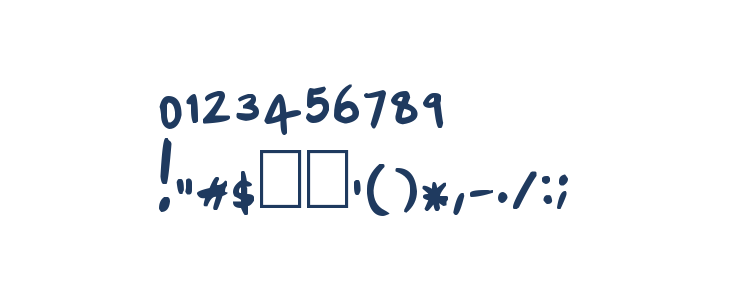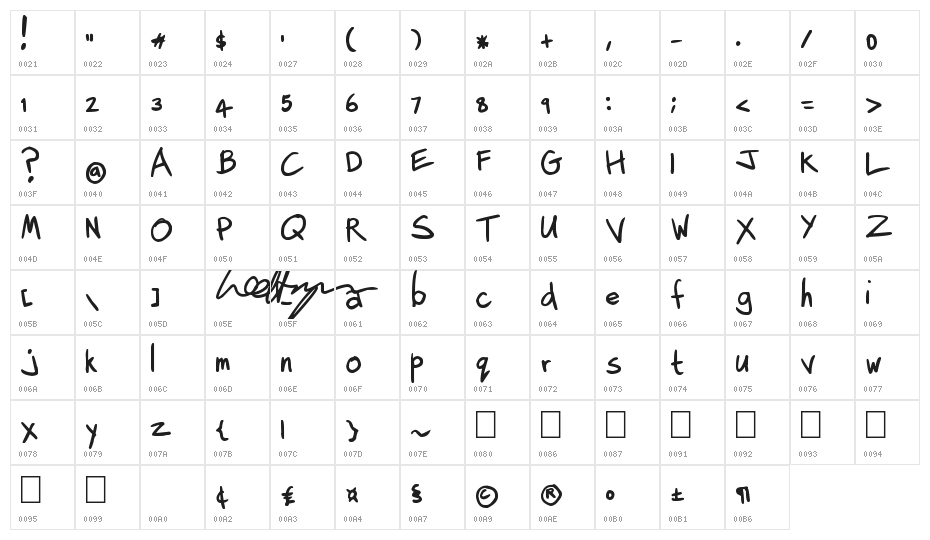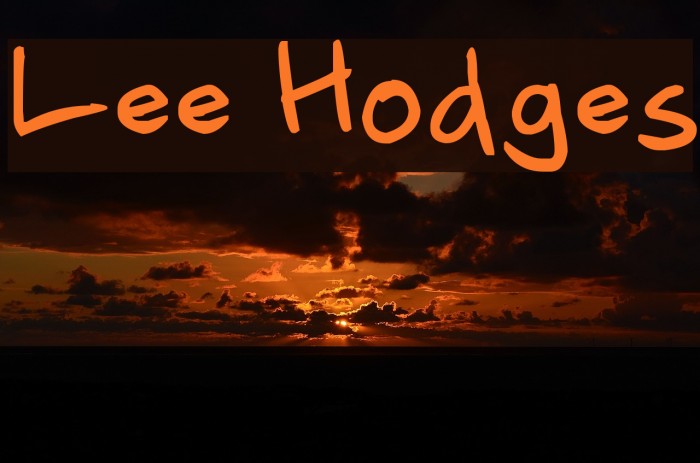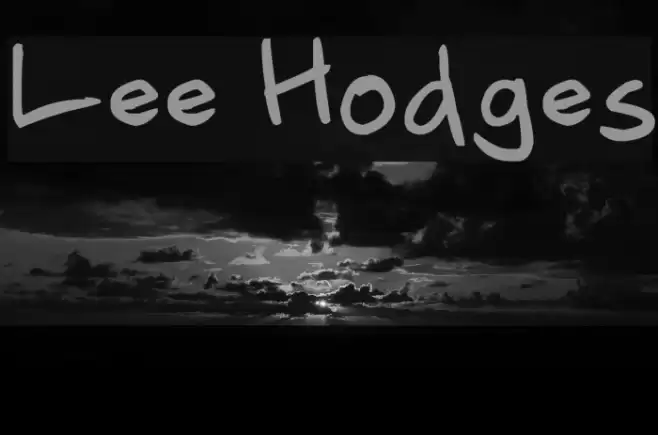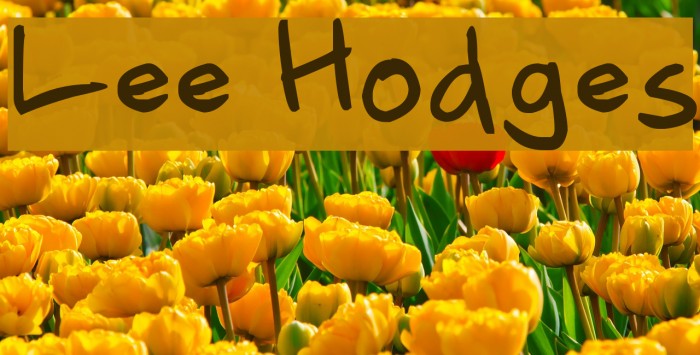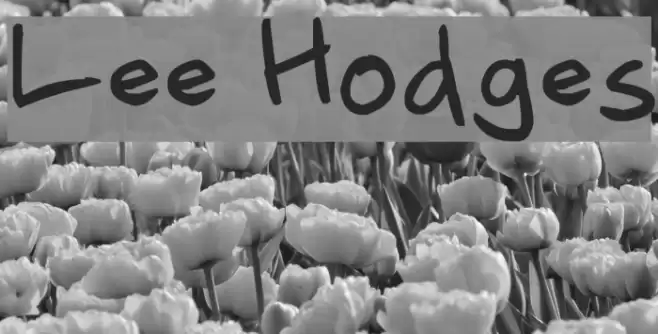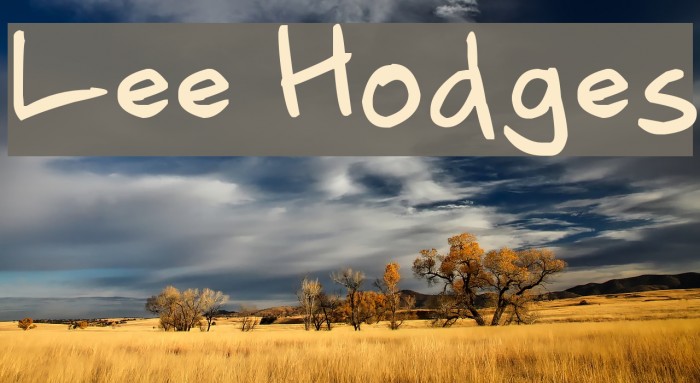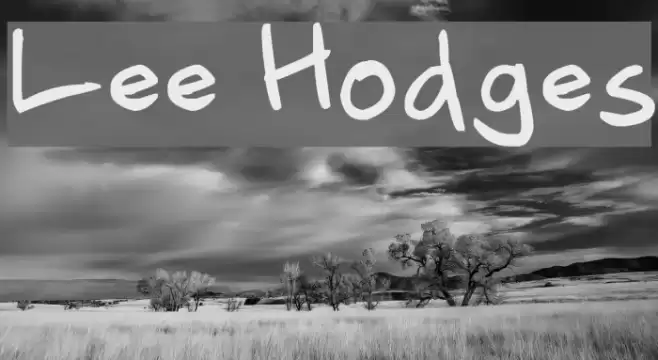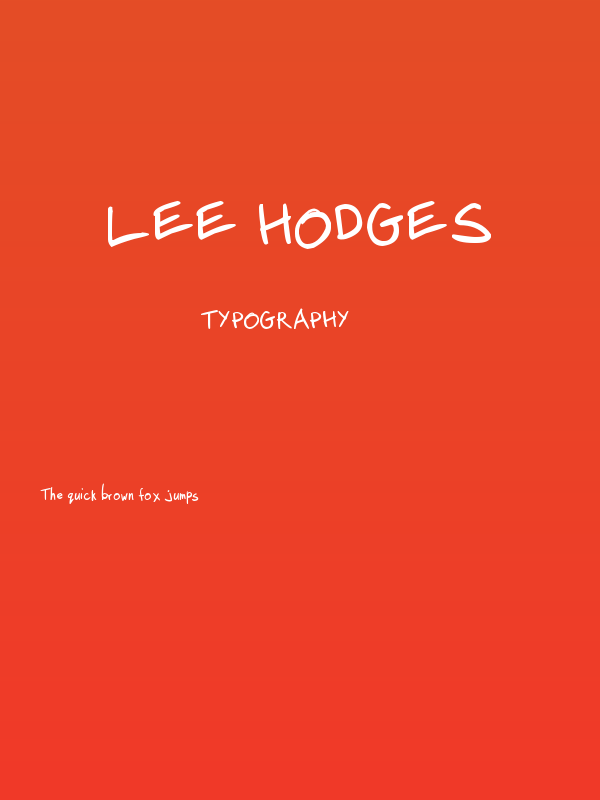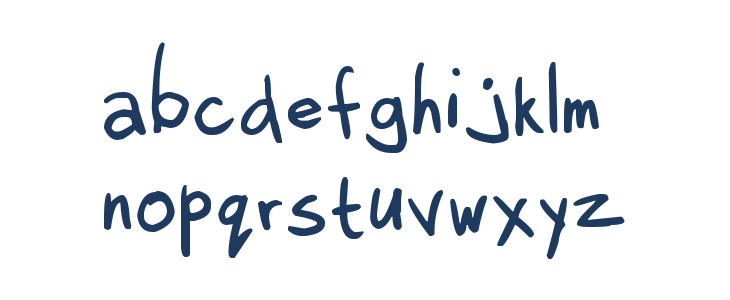
Lee Hodges Font
This playful and informal font features a handwritten style with a casual and friendly appearance. The letters have a slightly uneven baseline, giving it an authentic, hand-drawn feel. The strokes are consistent in width, providing a uniform look across all characters. The uppercase letters are bold and prominent, while the lowercase letters maintain a more relaxed and approachable demeanor. The numbers and special characters follow the same playful style, making this font versatile for various creative projects.
Overall StyleCasual
Use CaseHeadlines, Informal text, Creative projects
Proposed ProjectsIdeal for children's books, greeting cards, casual branding, and playful social media graphics.